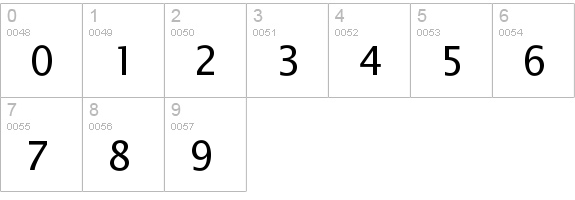
Lucida Sans Std Roman is a versatile and elegant font that exudes simplicity and sophistication. With its clean lines and modern design, this typeface is perfect for a wide range of design projects, from branding to editorial content. The classic and timeless appearance of Lucida Sans Std Roman makes it a popular choice among designers looking for a reliable and stylish font. The best part is that Lucida Sans Std Roman is available for free download at FontsMarket.com. Whether you're working on a professional project or a personal creative endeavor, you can easily access this high-quality font without any cost. Don't miss out on the opportunity to enhance your designs with the beauty and clarity of Lucida Sans Std Roman. Download it today and elevate your typographic creations to a whole new level!